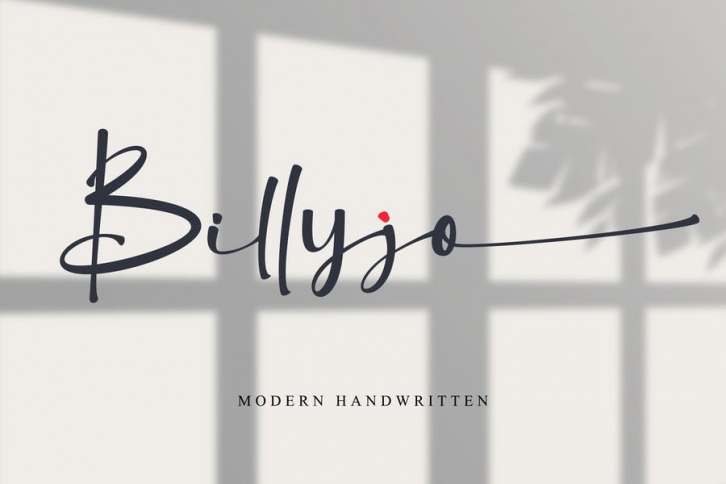
Billyjo is a elegant, soft hand-lettered handwritten font. Fall in love with its authentic feel and use it to create gorgeous wedding invitations, stationary art, eye-catching social media posts, greeting cards, advertising, packaging, and logo. This font is PUA encoded which means you can access all of the glyphs and swashes with ease! It also features a wealth of special features including alternate glyphs and ligatures.
- Support multilingual; ä ö ü Ä Ö Ü ß ¿ ¡
- Numerals & Punctuation
- lowercase and uppercase letters
- Ligature & Swash